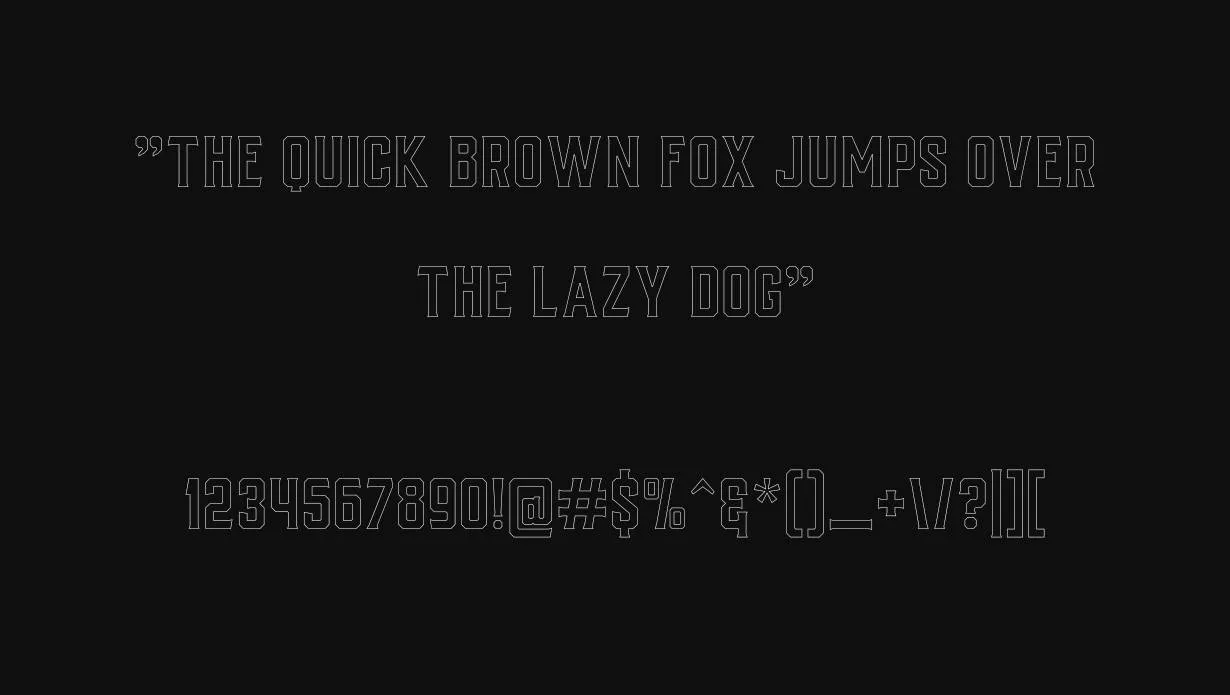
Vhiena Layer font introduces a multidimensional and textured style, akin to letters stacked upon one another, offering a unique depth to designs. In Adobe Photoshop, this font creates dynamic, multilayered posters or visually captivating elements, adding a vibrant touch to visual storytelling.
Its CSS application instills a sense of depth and dimension in web headers, making the text pop. Within Canva, it’s perfect for crafting layered social media visuals or vibrant event announcements, enhancing the overall design with its textured charm.
| Name | Vhiena Layer Font |
| Designer | lostvoltype |